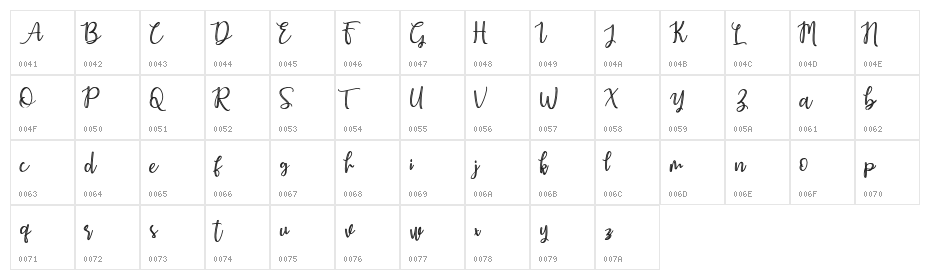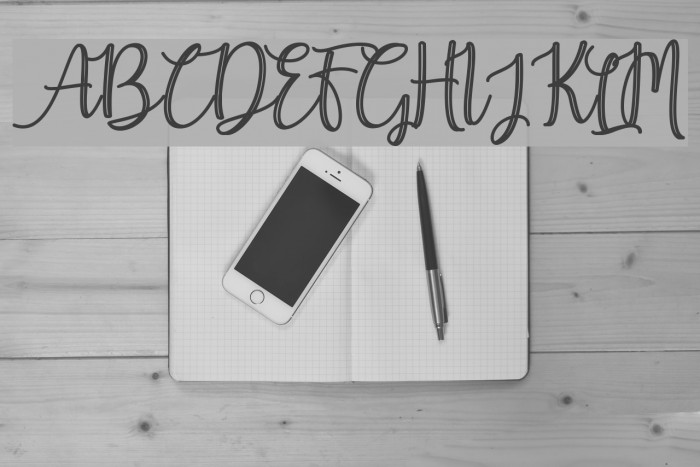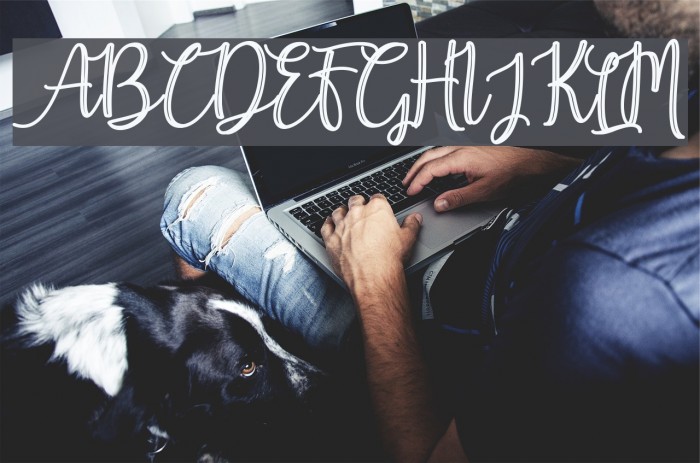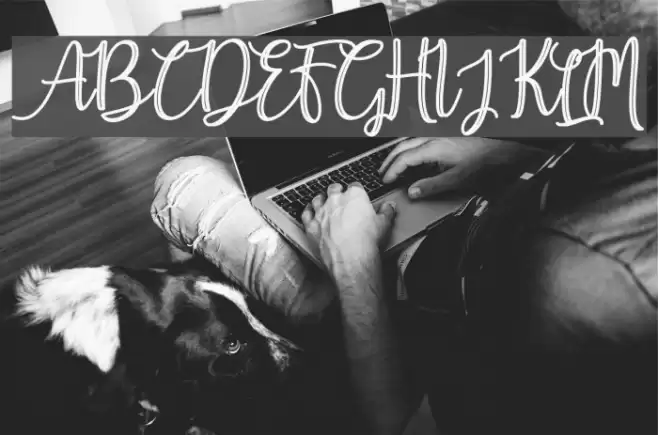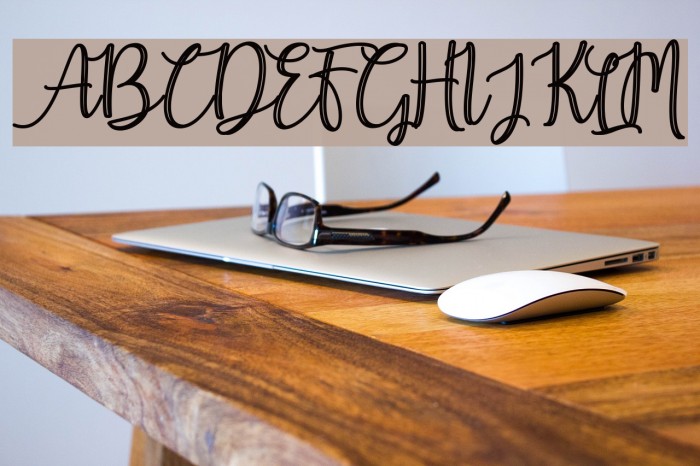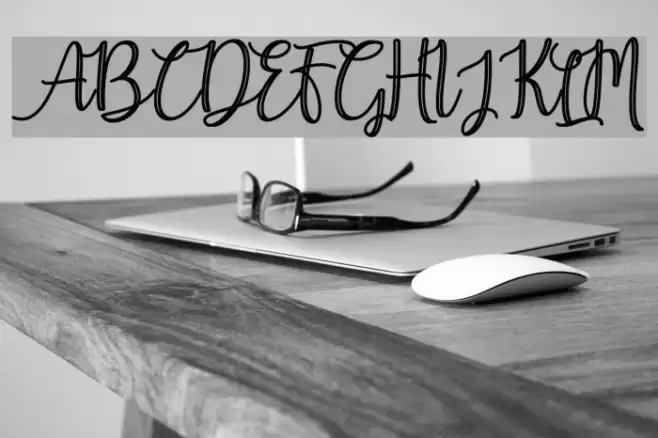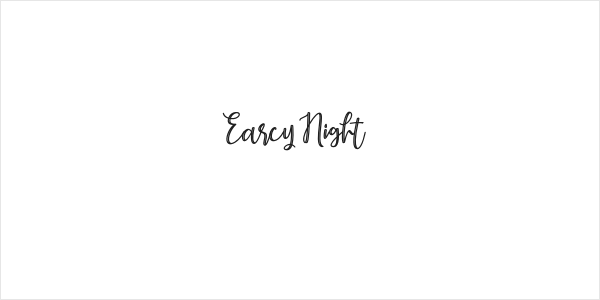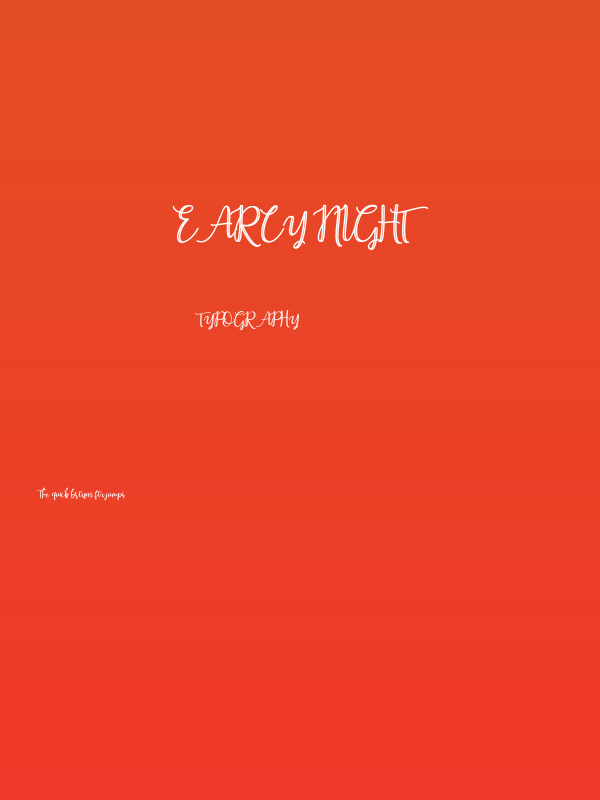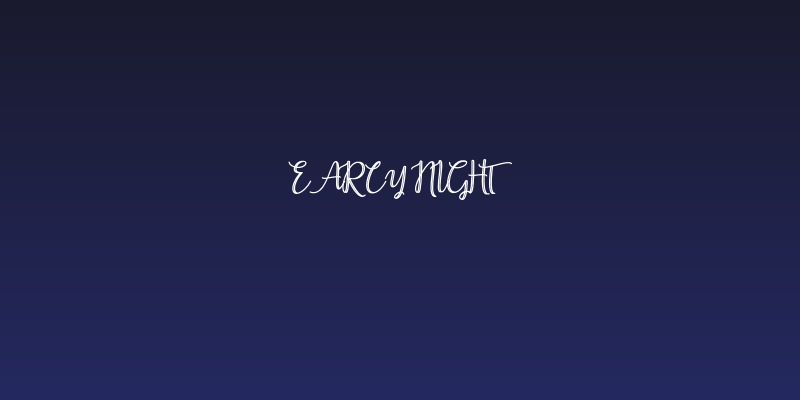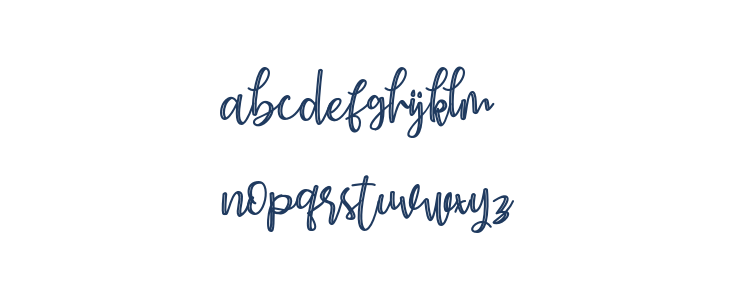
Earcy Night Font
Earcy Night Description
This font features an elegant, flowing script style that mimics the fluidity of handwriting. The uppercase letters are tall and graceful, with sweeping curves and loops that add a sense of motion and sophistication. The lowercase letters maintain this fluidity, with some characters featuring distinctive loops and swashes that enhance the overall aesthetic. The numbers and special characters are designed to complement the letters, maintaining the same graceful style. This font is ideal for projects that require a personal touch, such as invitations, greeting cards, and branding materials.
| Proposed Projects | Ideal for wedding invitations, greeting cards, personal branding, and elegant logos. |